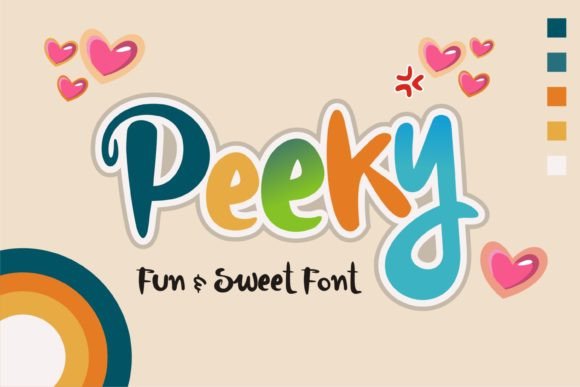
Behold, Peeky Font - a tantalizing display font that sparks joy and captivates imaginations. Its playful and fun personality shines through every stroke, making it the perfect choice for designers and creatives seeking a touch of whimsy in their projects. Whether you're crafting eye-catching logos, designing vibrant posters, or adding a touch of charm to your digital creations, Peeky Font is guaranteed to elevate your work to new heights.
With its versatile and adaptable nature, Peeky Font seamlessly blends into a wide range of design aesthetics, from playful and lighthearted to bold and sophisticated. Its distinct character adds personality to any text, making it an ideal choice for branding, marketing materials, and social media graphics. Unleash your creativity and let Peeky Font take you on a journey of visual delight.
Crafted by the talented onoborgol, Peeky Font is a true masterpiece that exudes creativity and boundless potential. It's a font that invites you to think outside the box, to explore new possibilities, and to bring your unique vision to life. Embrace the magic of Peeky Font and watch as your designs transform into captivating expressions of art.